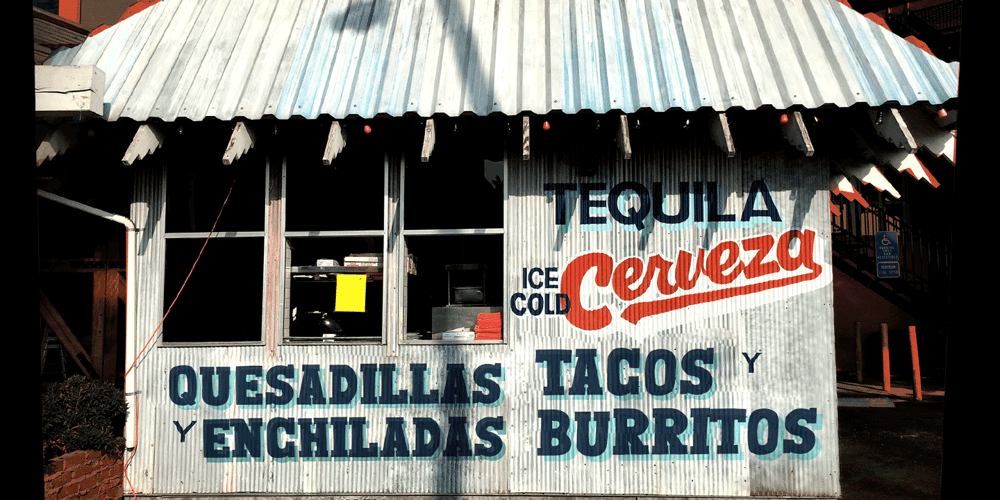
Londrina Serif Font Family was designed by Marcelo Magalhães Pereira and published by Tipos Pereira. Londrina Serif contains 5 styles and family package options. Londrina Serif is based on my font Londrina. It’s a vernacular typeface with a lot of weights and personality.